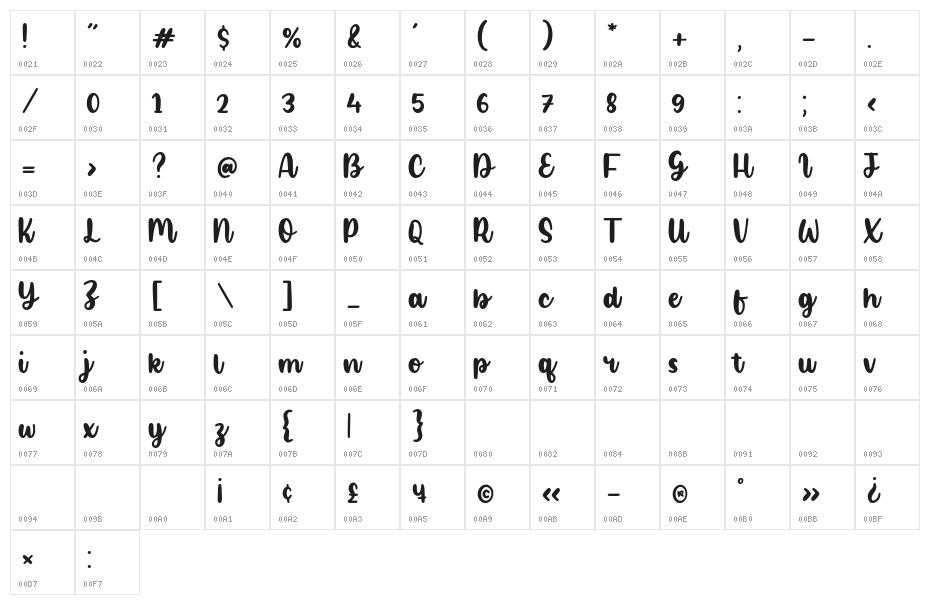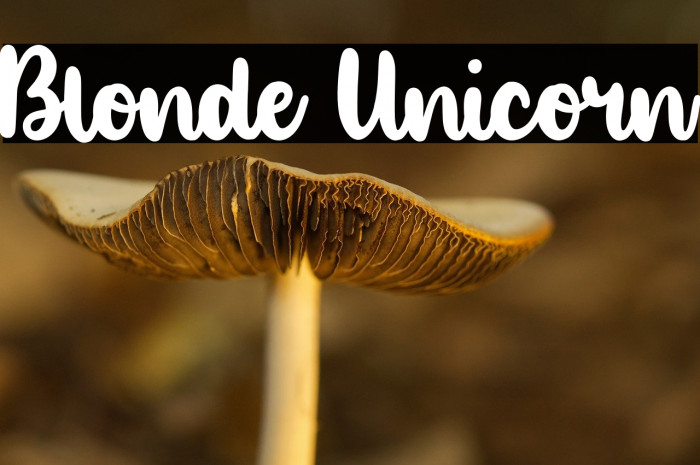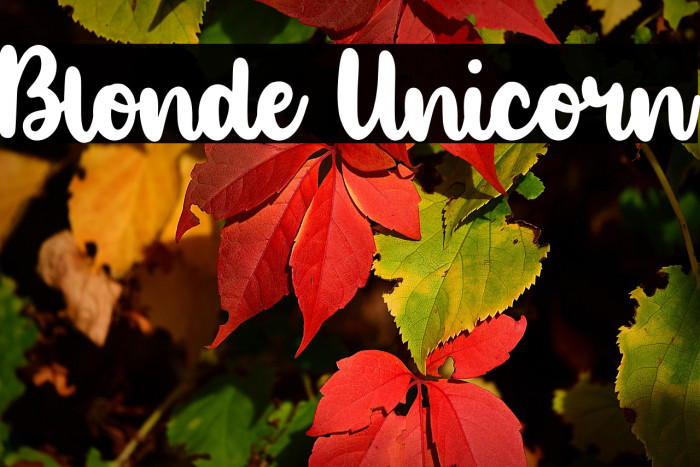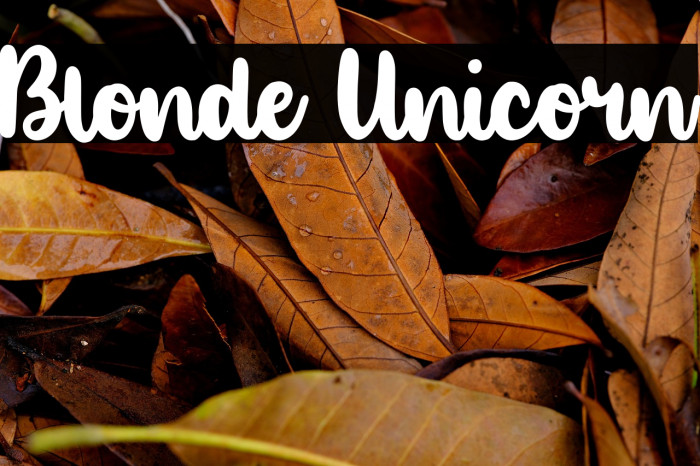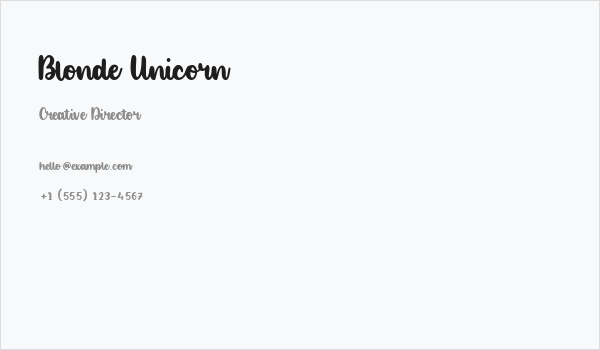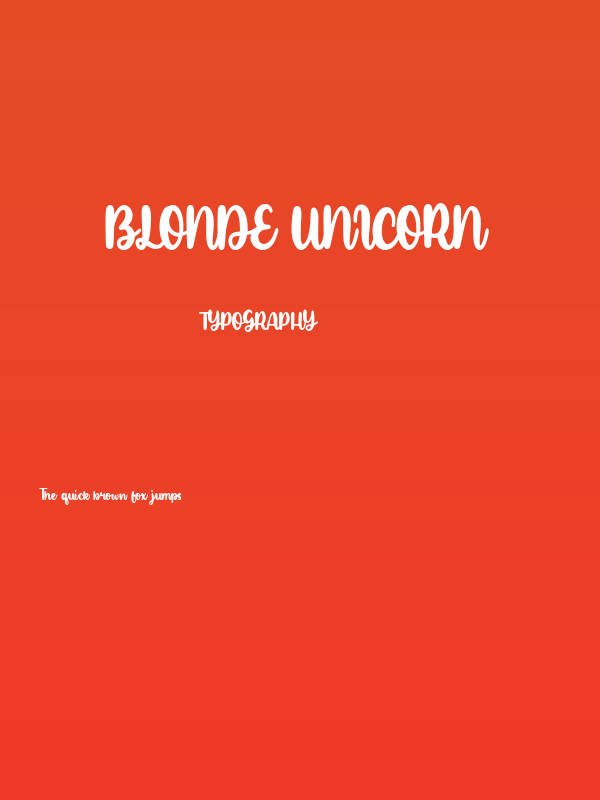
Blonde Unicorn Font
Blonde Unicorn Description
This font features a playful and energetic script style with bold, rounded strokes that give it a friendly and approachable appearance. The letters are connected in a flowing manner, reminiscent of casual handwriting, yet maintain a consistent and polished look. The uppercase letters are slightly larger and more pronounced, while the lowercase letters maintain a uniform height, enhancing readability. The numerals and special characters follow the same stylistic cues, ensuring a cohesive look across all text. This font's lively and dynamic nature makes it suitable for projects that require a personal touch.